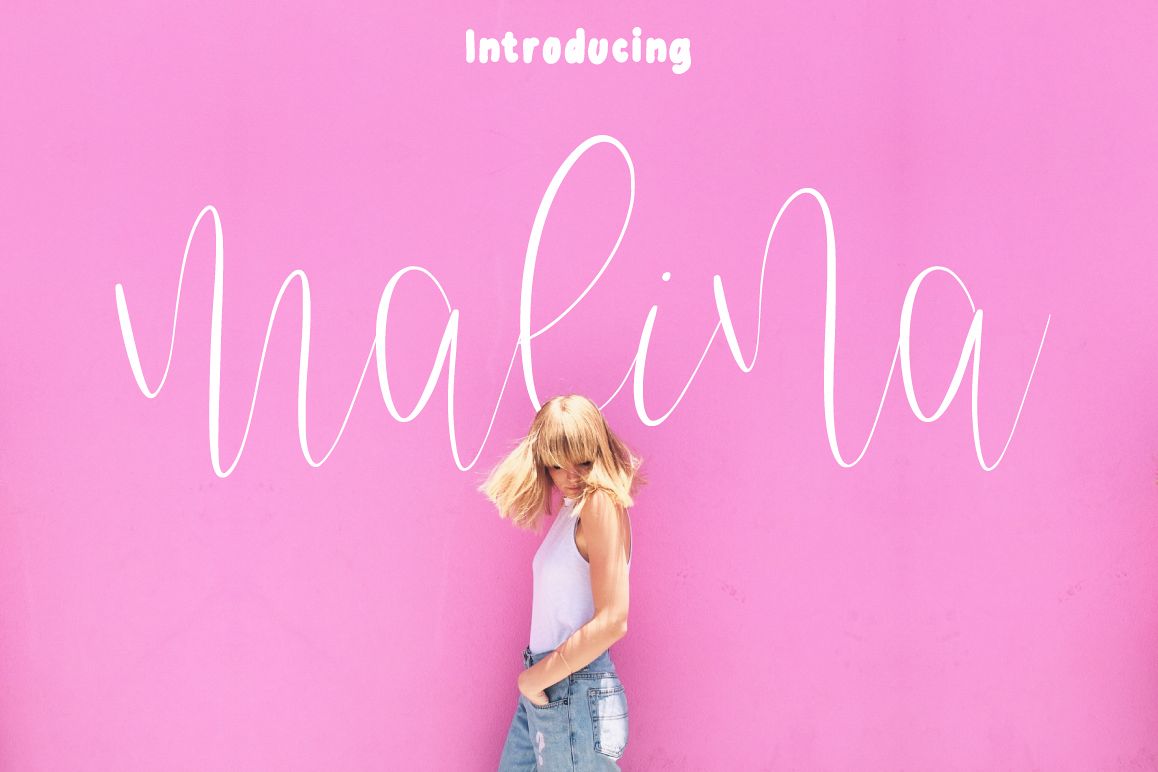
Malina Font Duo
Malina Font Duo - It is 2 completely different and perfectly combined fonts. Each font looks great as a standalone or in conjunction with another, or all together. This font is ideal for branding and decorate your any project.
Malina Script
Malina Bold